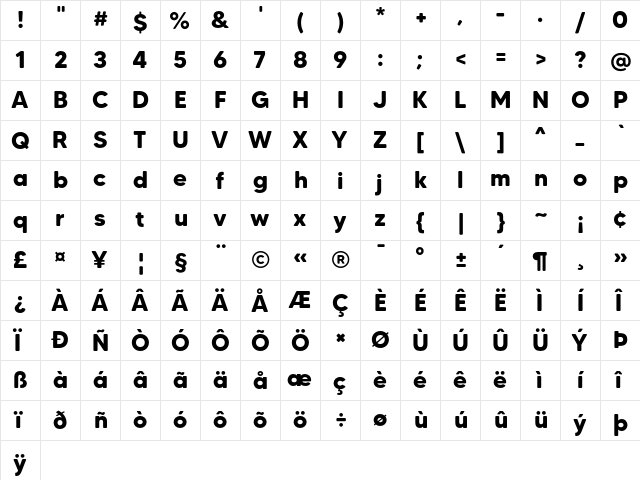
MADE Tommy Soft Bold
| Foundry | MadeType |
| Designer | MadeType |
Design Context for MADE Tommy Soft Typeface
MADE Tommy Soft takes a measured approach to typography — its balanced proportions and neutral character make it a reliable workhorse for both digital and print work. Its bold stroke weight gives it real presence on the page.